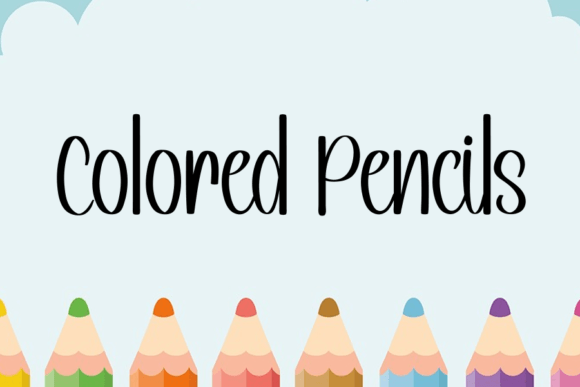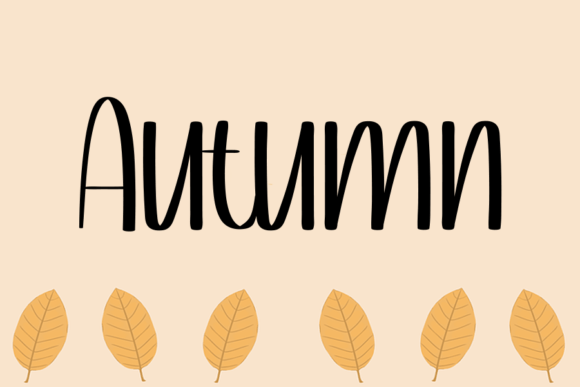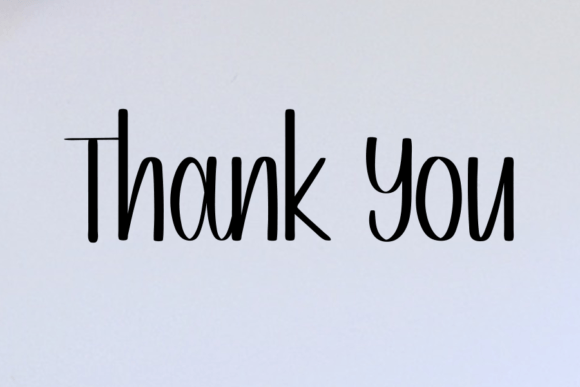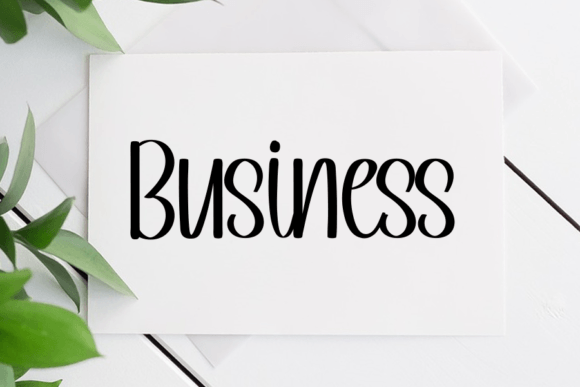
Handmade Font: Friendly Handwritten Style for Crafts & Design
Meet Handmade – your new creative companion. This inviting handwritten font captures the warmth of personal touch with just enough polish for professional use. Whether you’re crafting heartfelt cards or designing social media graphics, Handmade delivers authentic charm with effortless versatility.
Why You’ll Love Handmade
- Natural Imperfections: Slight wobbles for authentic feel
- Extended Character Set: 600+ glyphs with alternates
- Perfect Readability: Clear even at small sizes
- Craft-Ready: Works beautifully for physical projects
Endless Creative Possibilities
For Makers & Crafters
Ideal for:
- DIY wedding invitations
- Handmade product labels
- Scrapbook journaling
Digital Design Magic
Perfect for:
- Blog post featured images
- Etsy shop banners
- Presentation slide titles
- Languages: Basic European characters
- Includes: 15 decorative dingbats
✂️ Crafting Tip: Print at 120% size for perfect cut-out letters when making banners.
Perfect Pairings
- Cozy Vibes: with Comfortaa
- Modern Mix: with Montserrat Light
- Playful Twist: with Fredoka One